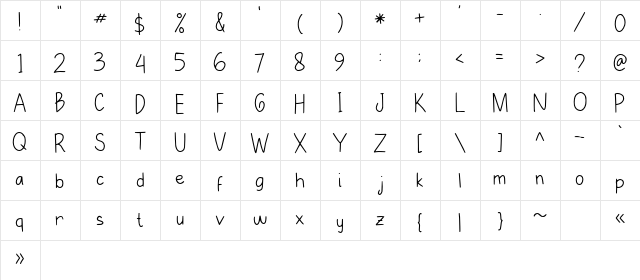
Le Ratna Regular
Design Context for Le Ratna Typeface
Le Ratna offers clean, dependable letterforms without strong stylistic allegiance, making it a practical choice for designers who need flexibility.